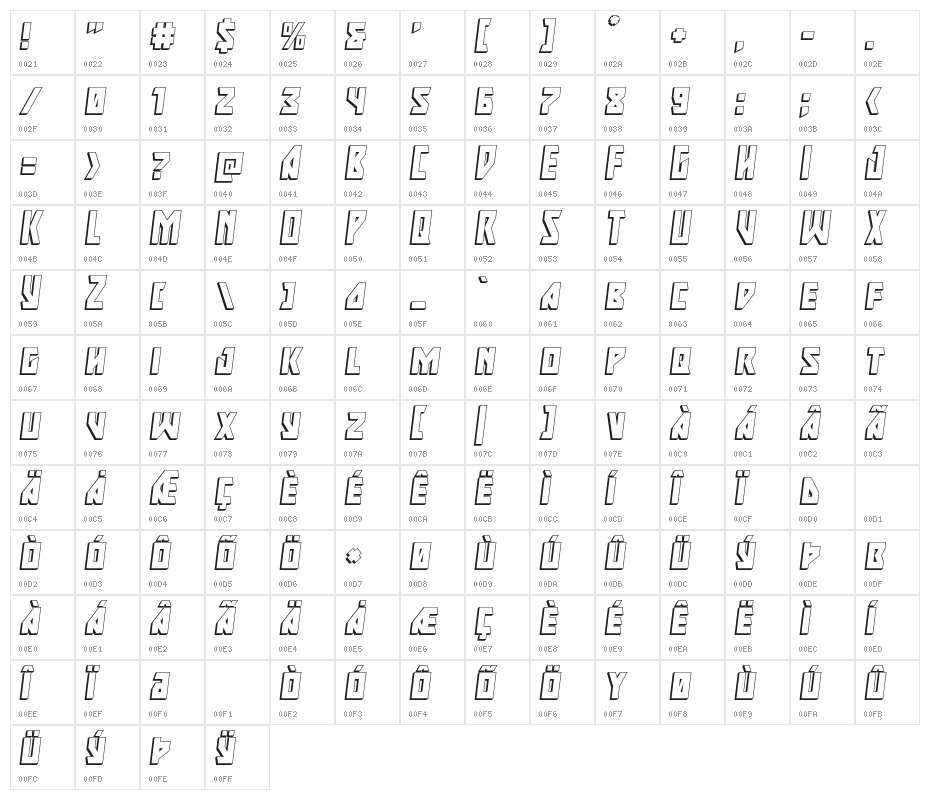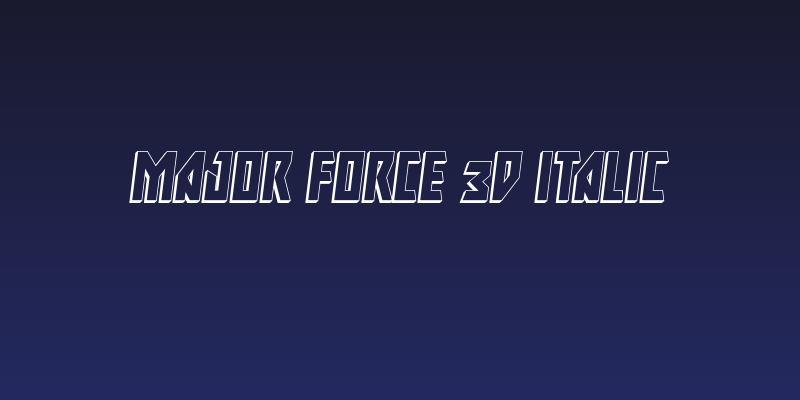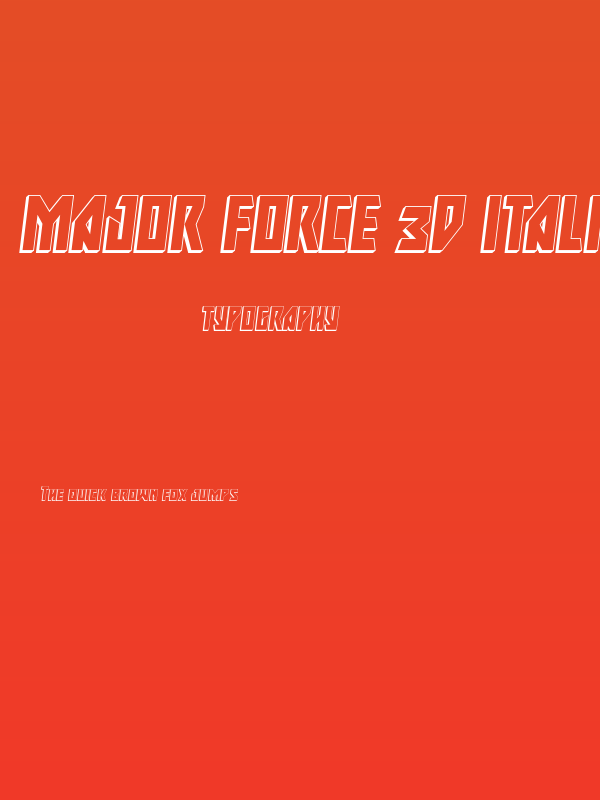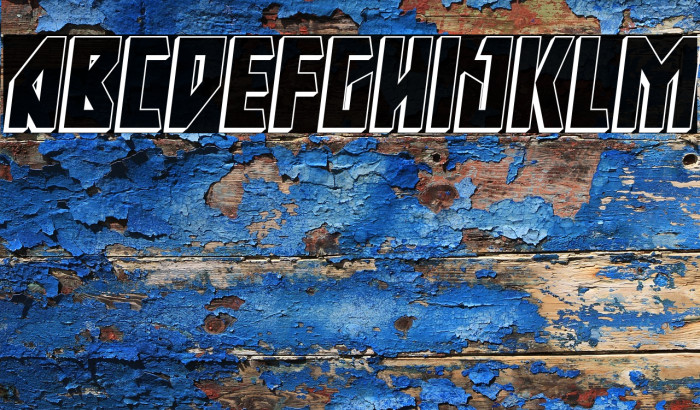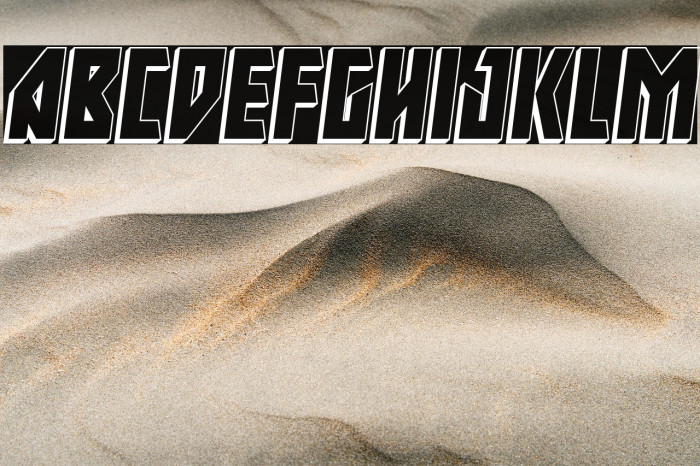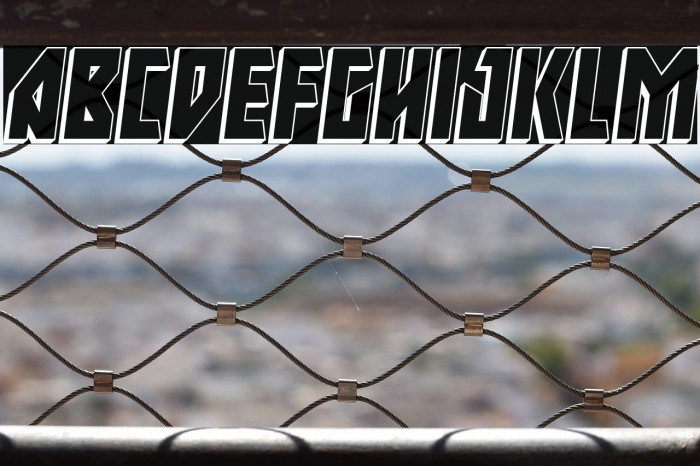
Major Force 3D Italic Font
Major Force 3D Italic Description
This font features a bold, three-dimensional style with a strong italic slant, giving it a dynamic and impactful appearance. The characters are outlined, creating a sense of depth and movement, which is enhanced by the angular, geometric shapes of each letter. The uppercase and lowercase letters maintain a consistent style, with sharp edges and a futuristic aesthetic. The numbers and special characters follow the same design principles, ensuring uniformity across all glyphs. This font is ideal for projects that require a bold statement or a modern, edgy look.
| Proposed Projects | Ideal for video game titles, movie posters, sports branding, and any project needing a bold, modern touch. |